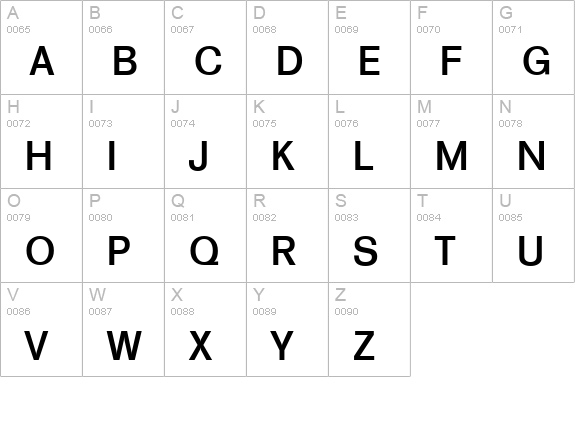
FormulaSerial-Medium-Regular is a balanced, medium-weight variant in the FormulaSerial typeface family \xE2\x80\x94 well suited to sub-headlines, navigation, and balanced editorial work.
FormulaSerial-Medium-Regular is a versatile and modern font designed for various graphic design projects. With its clean lines and balanced proportions, this font exudes professionalism and readability. Whether used for body text in reports, headlines in magazines, or branding materials, FormulaSerial-Medium-Regular delivers a polished look that captures attention. This font offers a wide range of characters, making it suitable for multiple languages and typographic needs. Its medium weight strikes the perfect balance between boldness and elegance, ensuring that your message stands out without overpowering the design. The precise spacing and consistent letterforms of FormulaSerial-Medium-Regular contribute to a harmonious flow of text, enhancing overall legibility. Best of all, FormulaSerial-Medium-Regular is available for free download at FontsMarket.com. With just a few clicks, you can add this high-quality font to your collection and elevate your design projects with a touch of sophistication. Don't miss out on the opportunity to enhance your work with the timeless appeal of FormulaSerial-Medium-Regular.